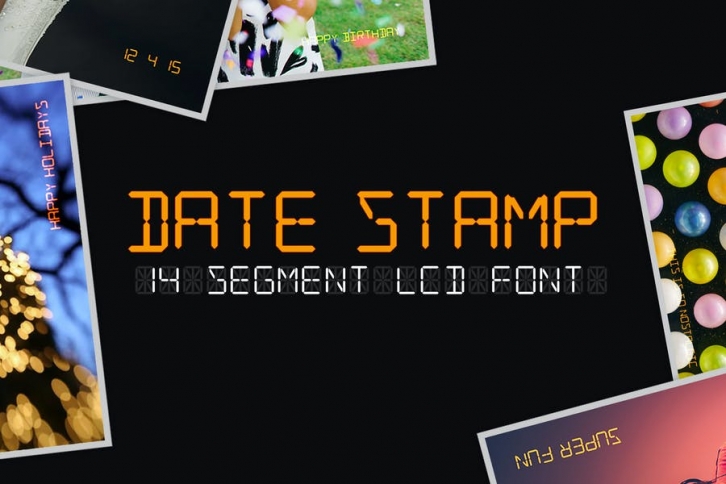
Date Stamp is a set of two display fonts based off of a 14 segment LCD display. These fonts are designed to mimicking the date imprint on traditional film photos but can be used in other applications such as a digital clock app or retro display board.
Date Stamp
- Regular
- Italic
- Bold
- Bold Italic
Date Stamp Alt
- Regular
- Italic
- Bold
- Bold Italic
"Date Stamp Alt" mimics the fixed spacing in traditional LCDs. Use this font for an authentic look.